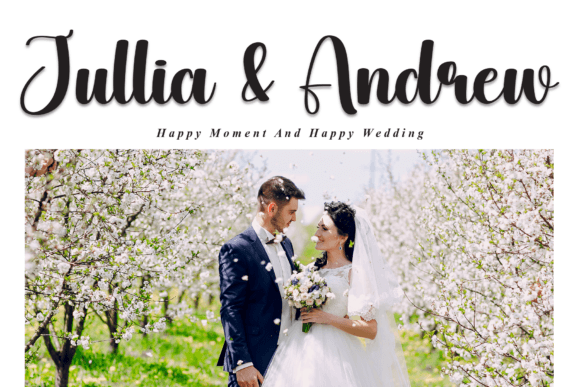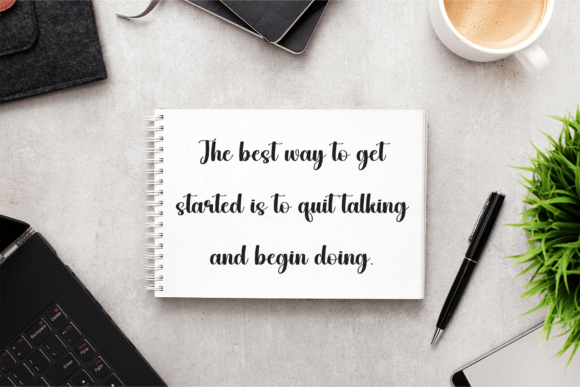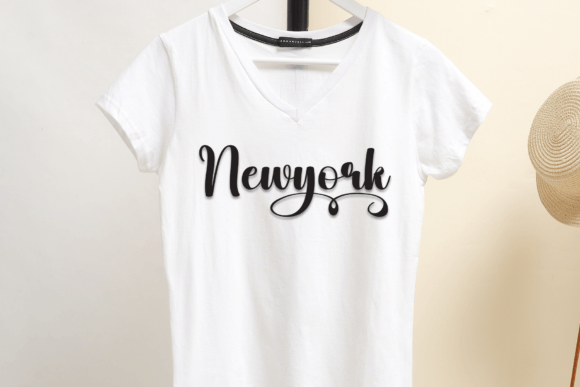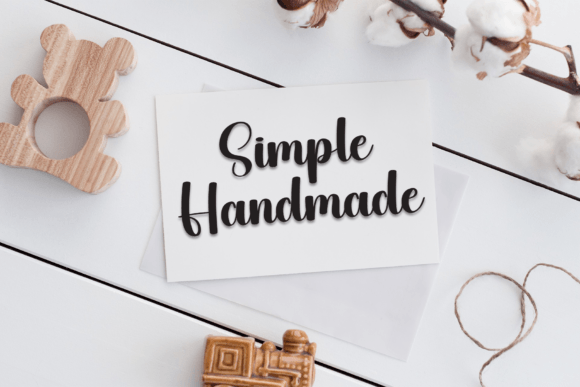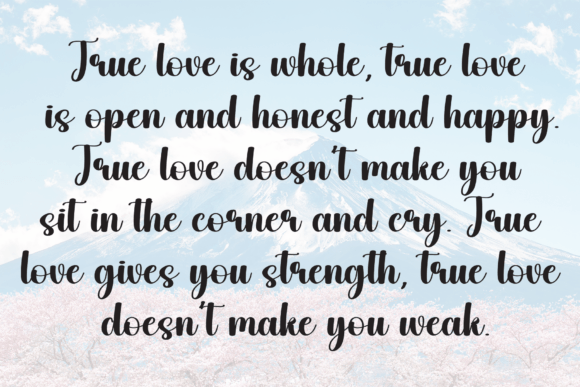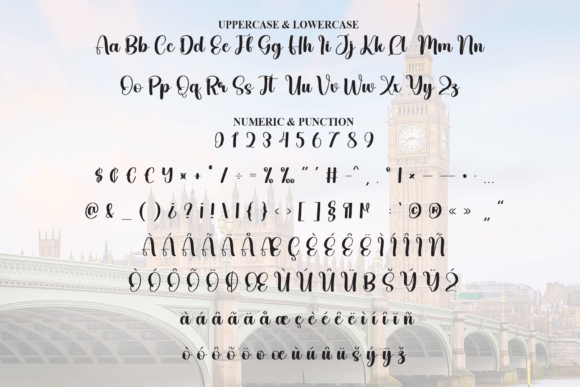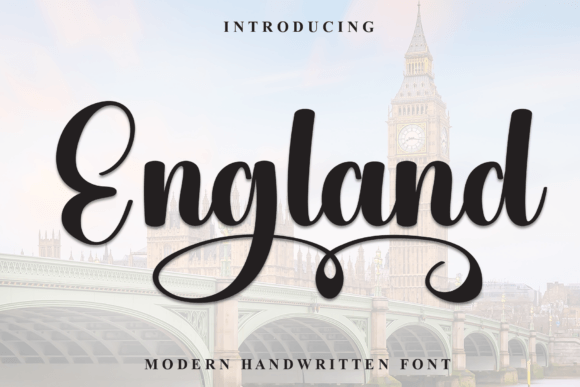
Introducing England Font: A Delightful Creation of Charm and Whimsy
Are you tired of using the same old fonts in your designs? Look no further! England Font is a handcrafted display font that combines charm and whimsy, perfect for adding a playful dash to your wedding invites, heartfelt greeting cards, or any design craving a hint of fun. This font is not just cute; it’s a celebration of joy wrapped in every curve and line.
The Perfect Blend of Sweetness and Friendliness
England Font is a unique creation that exudes warmth and friendliness. Its hand-penned quality gives it a personal touch, making it ideal for designs that require a human feel. Whether you’re a designer, crafter, or DIY enthusiast, this font is sure to bring a smile to your face and inspire your creativity.
With England Font, the possibilities are endless. Use it to create:
• Wedding invitations that set the tone for a joyful celebration
• Heartfelt greeting cards that convey love and appreciation
• Social media graphics that add a playful touch to your posts
• Branding materials that showcase your company’s friendly and approachable side
• DIY projects that require a personal and whimsical touch
What Makes England Font Special?
England Font is more than just a font; it’s an experience. Here are some features that make it special:
• Handcrafted with love: Each letter is carefully crafted to ensure a personal and unique feel.
• Whimsical and playful: England Font is designed to add a touch of fun to your designs.
• High-quality and versatile: Use it for both digital and print projects, from social media graphics to wedding invitations.
Tips for Using England Font
To get the most out of England Font, here are some tips:
• Pair it with contrasting fonts: Combine England Font with a clean sans-serif font to create visual interest.
• Experiment with colors: England Font looks great in bold, bright colors, but also try it in pastel shades for a softer look.
• Don’t be afraid to get creative: England Font is designed to be playful, so have fun with it! Use it in unexpected ways to add a touch of whimsy to your designs.
England Font is a delightful creation that’s sure to bring joy and playfulness to your designs. With its handcrafted quality, whimsical feel, and versatility, it’s the perfect addition to your font collection. So, dare to create a fun touch with our endearing and adorable font. Your canvas won’t be just another design; it will be an emotion-filled masterpiece.
Get Ready to Experience the Warmth of England Font